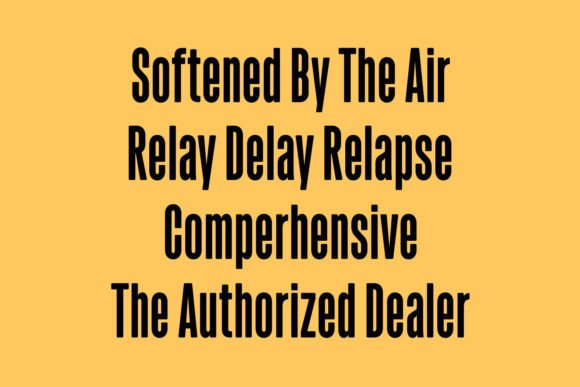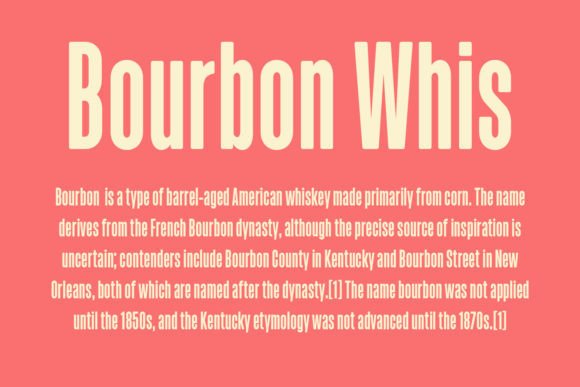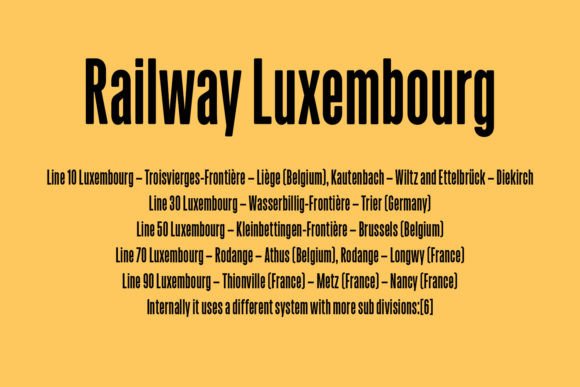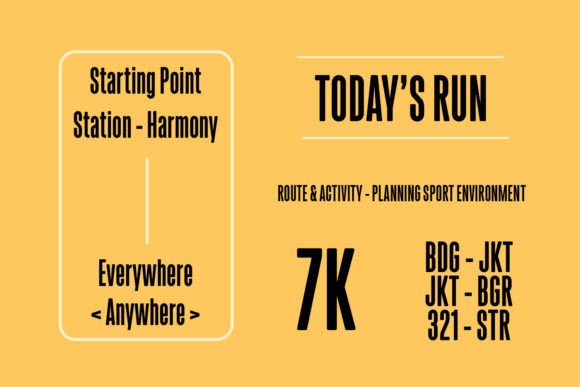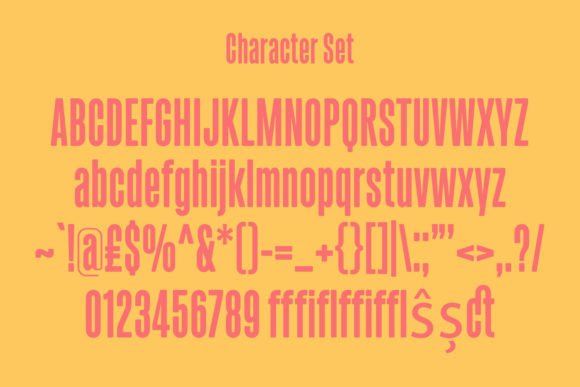
The Designer’s Delight: Getting to Know Fectron Font
I’ll never forget the time I was working on a logo design project for a trendy new coffee shop. My client wanted a modern, edgy look that would appeal to the young and adventurous crowd. I spent hours scouring font libraries and design blogs, but nothing seemed quite right. That was until I stumbled upon Fectron Font. With its semi-round condensed sans serif design and semi-bold strokes, it was love at first sight! ✨
An Honest Review of Fectron Font
- 🎉 Unique character: Fectron has a fun, playful vibe that’s perfect for creative projects.
- ✅ Versatility: This font is amazing for logo design, social media, movie titles, book titles, short text, and even long text.
- 💡 OpenType features: Fectron comes with ligatures, alternates, and stylistic sets that give you plenty of creative options.
- 👍 Pairing flexibility: It works beautifully with script or serif fonts, making it perfect for secondary text.
While Fectron is an amazing font, there are a few things to keep in mind: 🤔
- ⚠️ Legibility at small sizes: Like many condensed fonts, Fectron may become a bit tricky to read at very small sizes.
The Story Behind Fectron Font
Fectron was designed with the modern creative in mind. Its creator aimed to craft a font that was both fun and functional, with a unique character that would stand out in any design. While the exact backstory is unclear, it’s evident that Fectron was made to inspire creativity and bring a fresh perspective to the world of typography.
Q: What type of projects is Fectron best suited for?
Fectron is incredibly versatile and can be used for logo design, social media graphics, movie and book titles, and even long-form text.
Q: Does Fectron support OpenType features?
Yes, Fectron comes with a range of OpenType features, including ligatures, alternates, and stylistic sets.